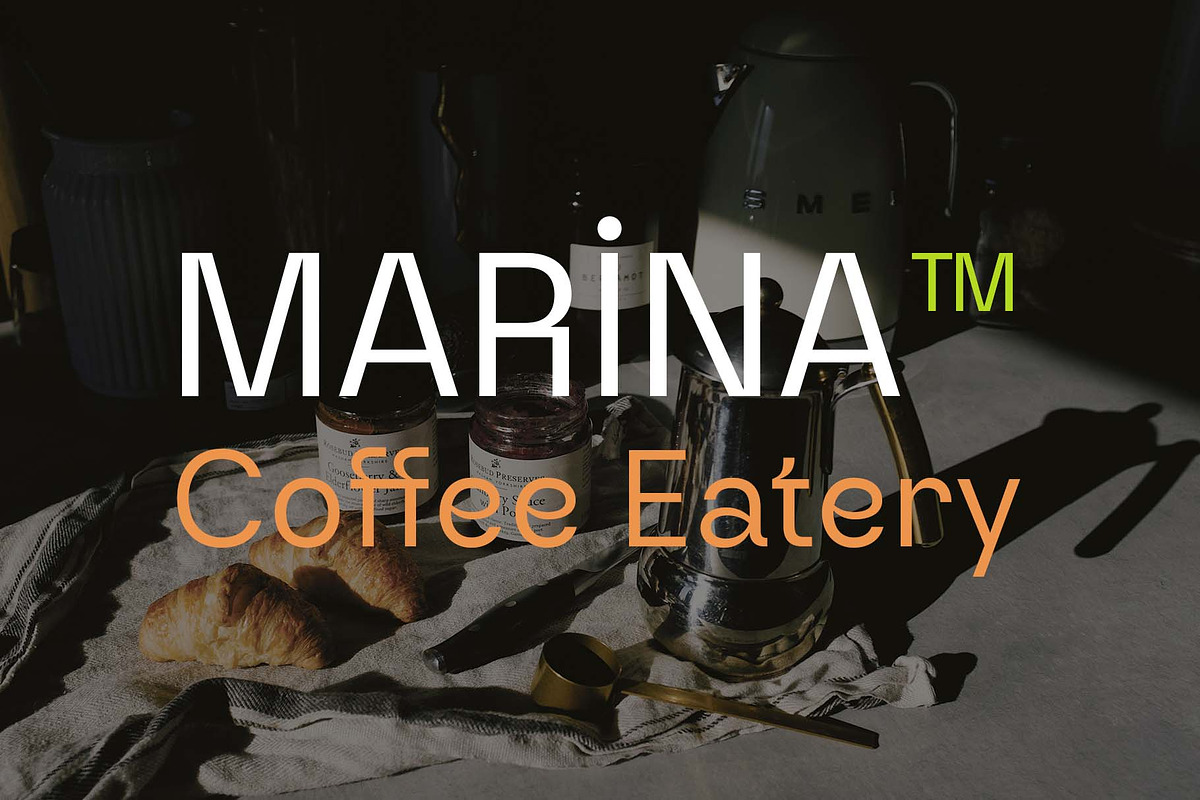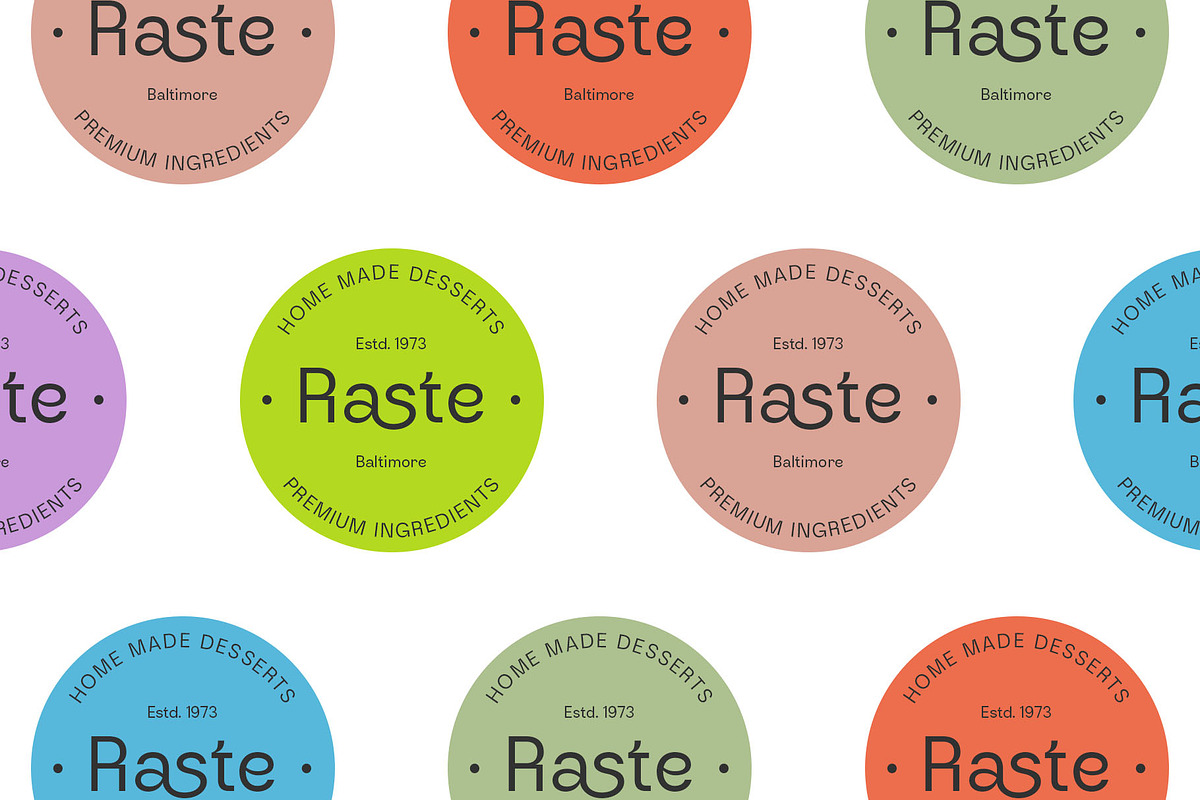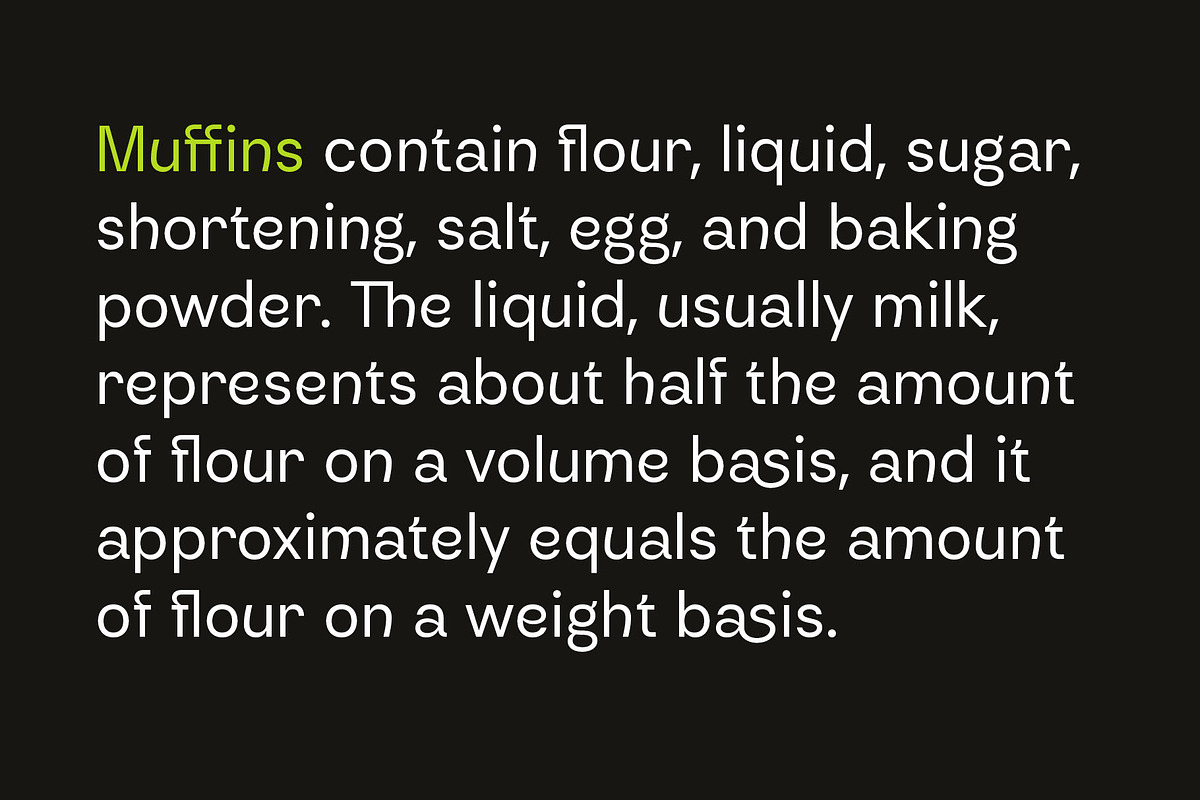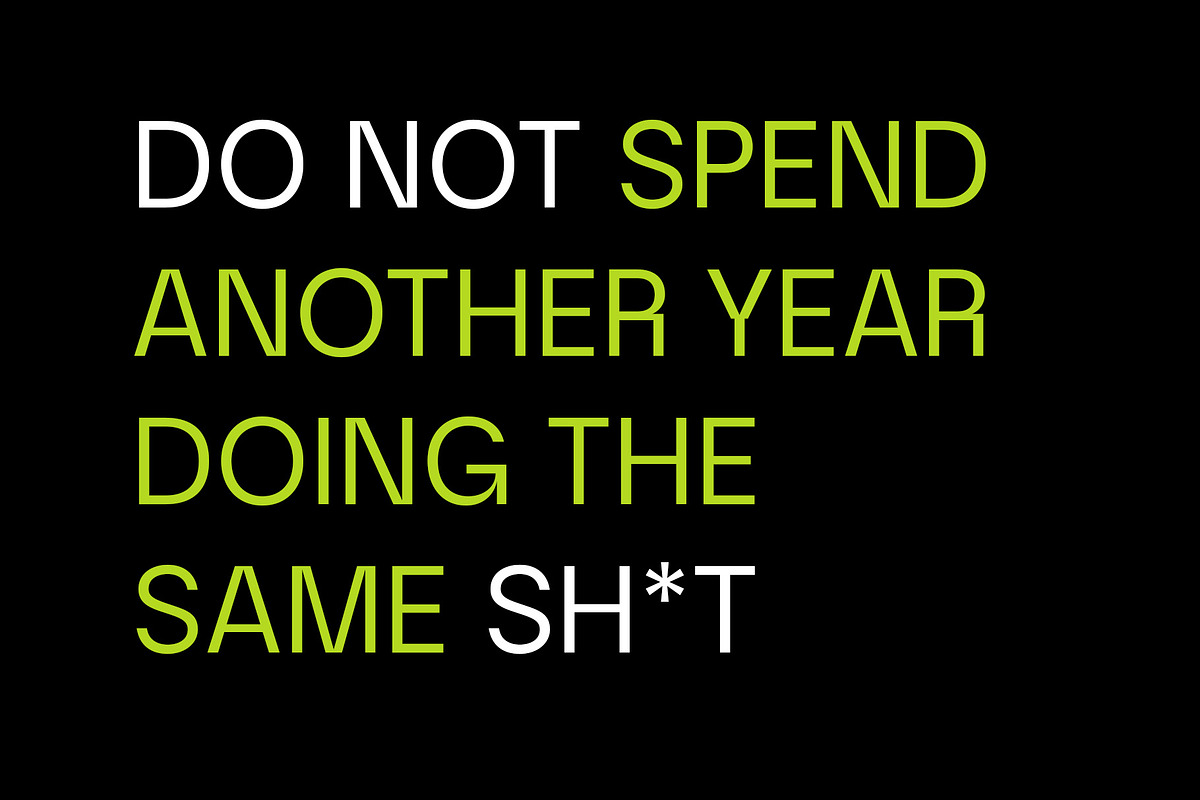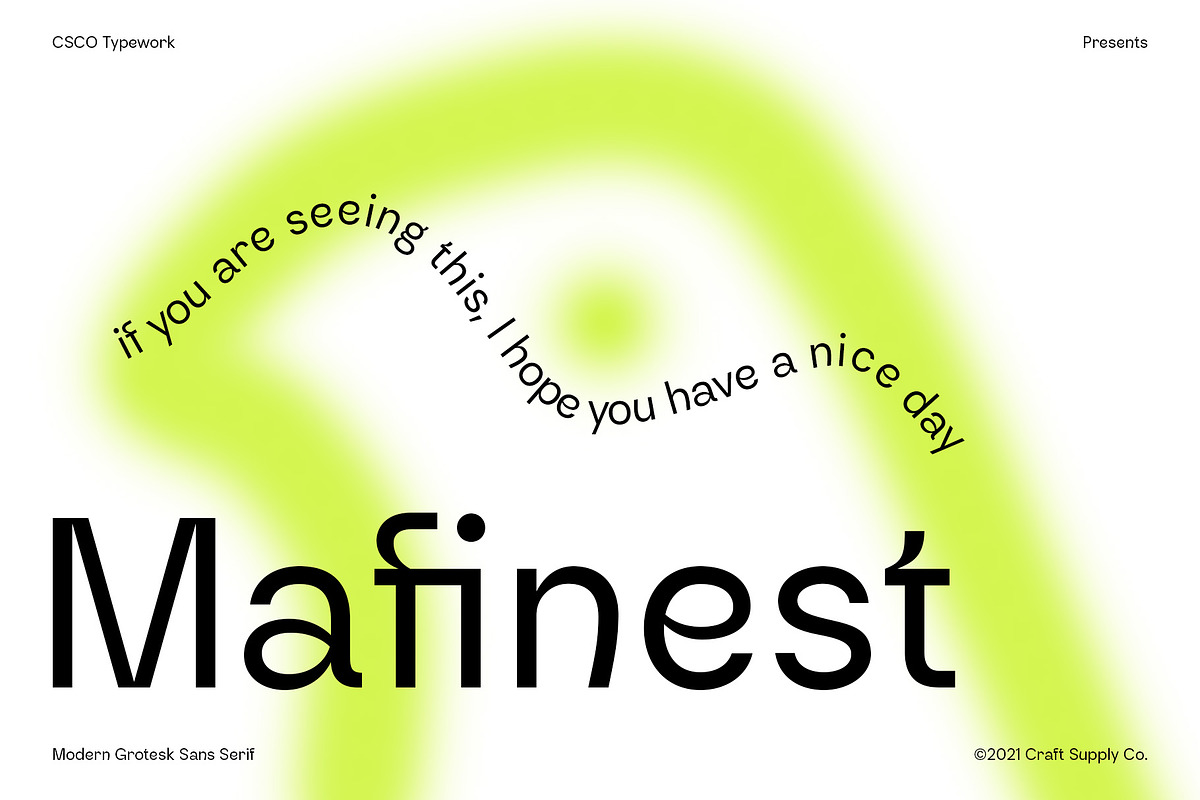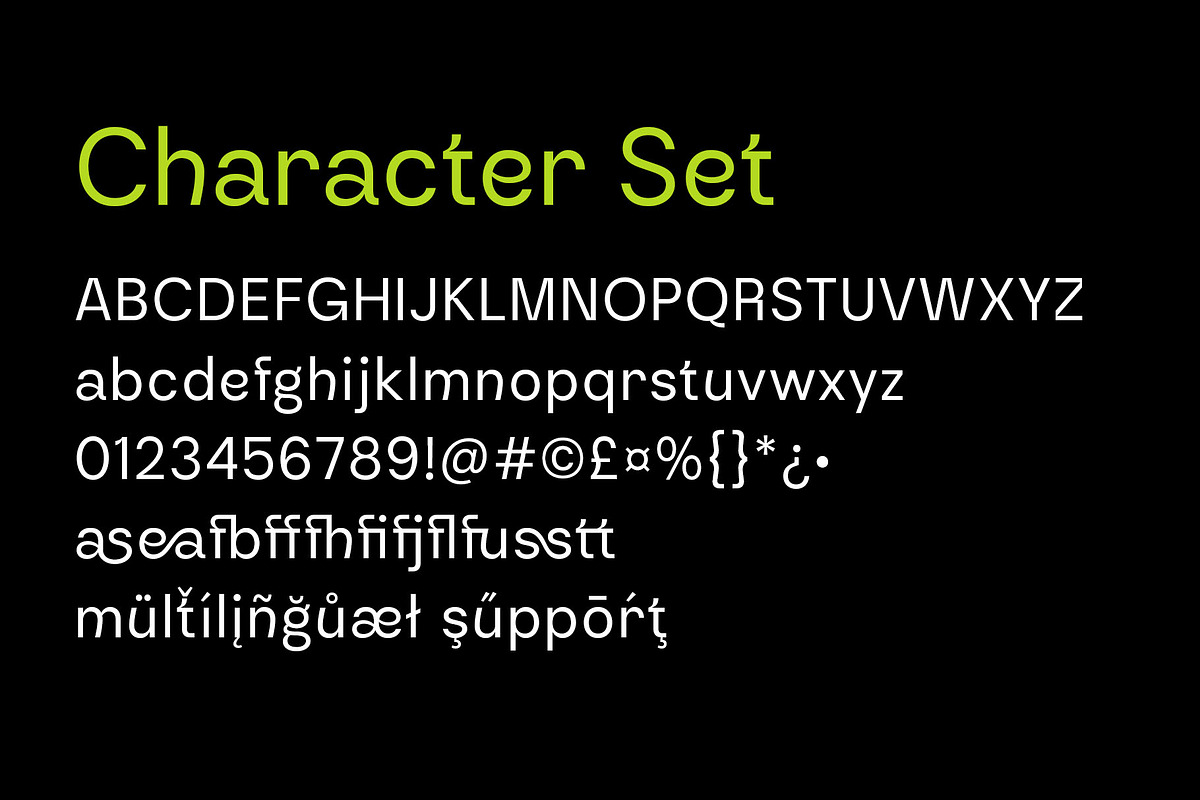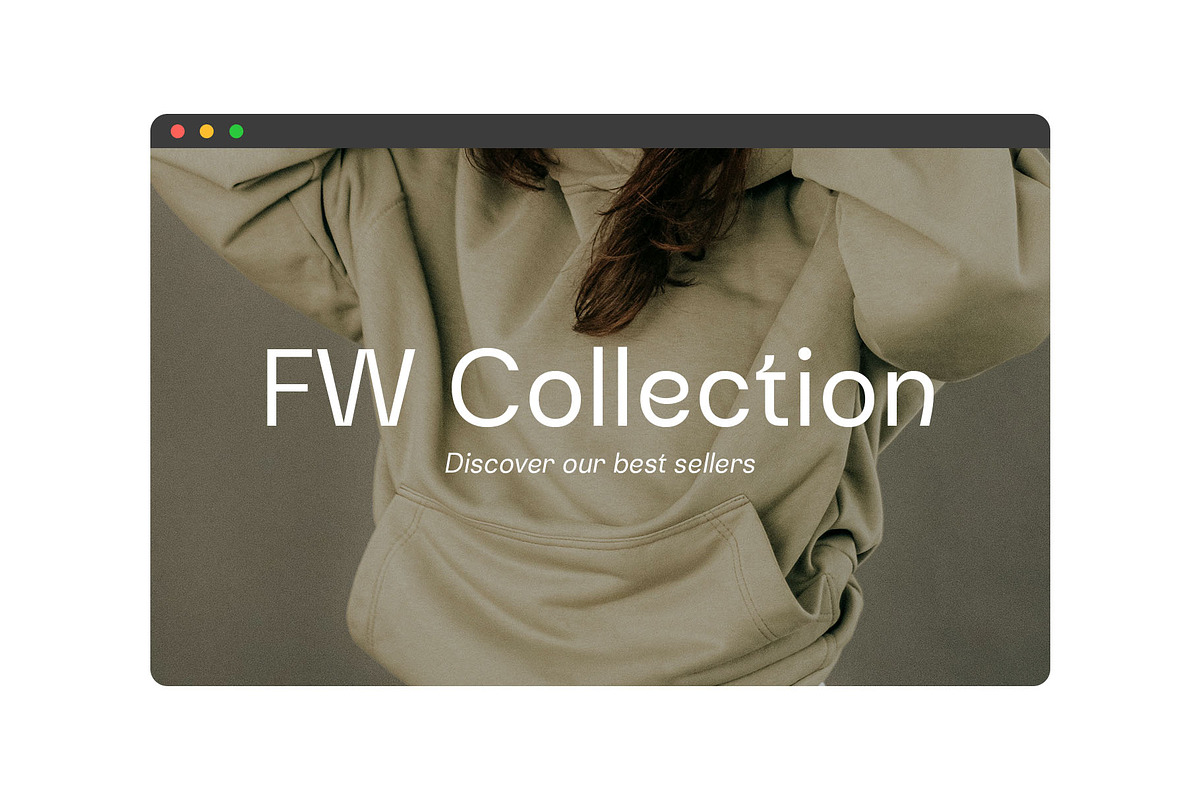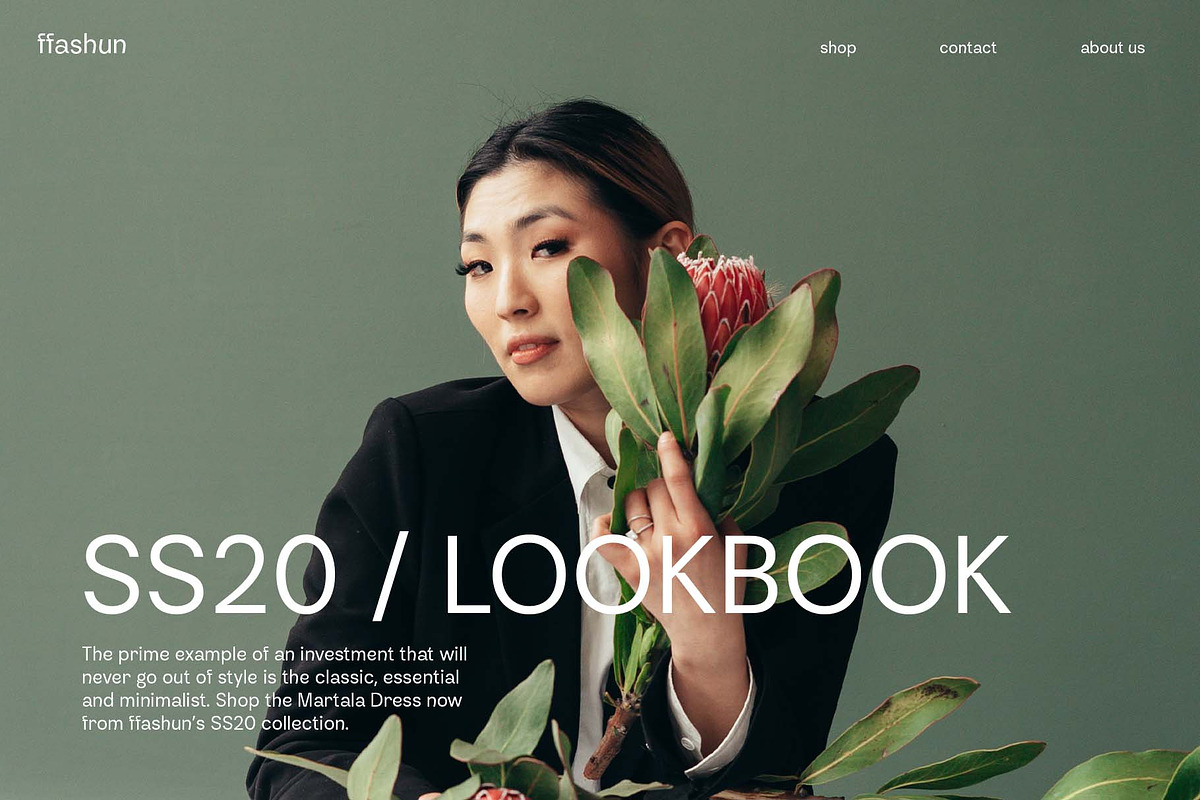
Mafinest - Modern Grotesk
Introducing Mafinest - Modern Grotesk.
Mafinest is a modern grotesk sans serif for display or short text purposes. It can be used to create almost all types of design projects like print materials. Just use your imagination and your project will become more alive and look great than ever with this typeface.
You want to make a greeting card or a package design, or even a brand identity, craft design, any DIY project, book title, wedding font, pop vintage design, retro design or any purpose to make your art / design project look pretty and trendy? Feel free to play with this typeface!